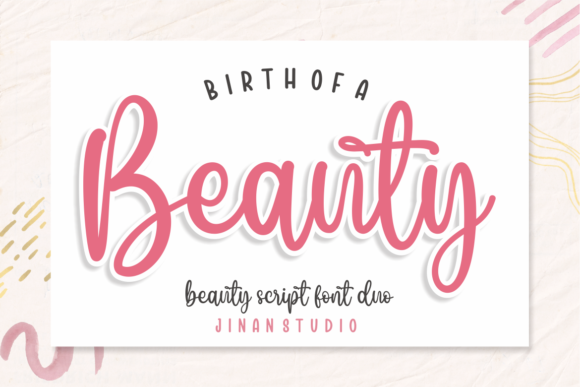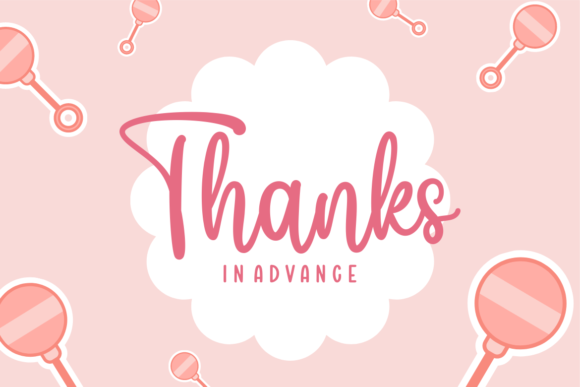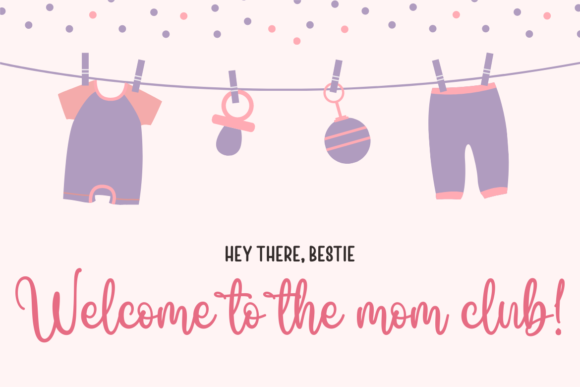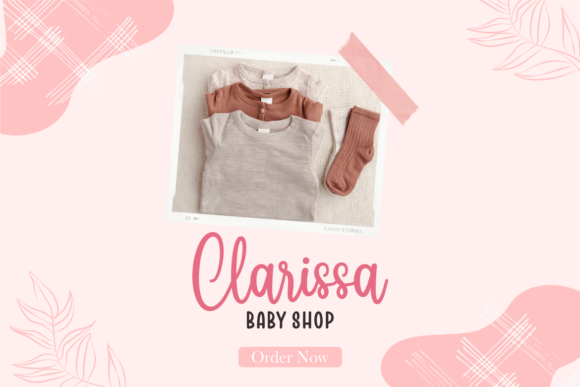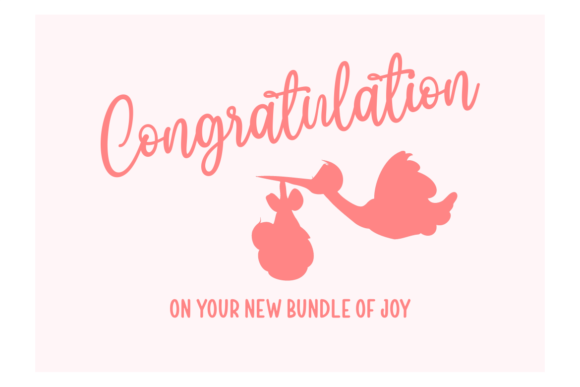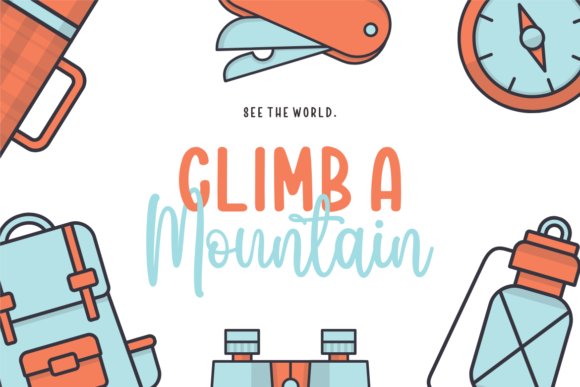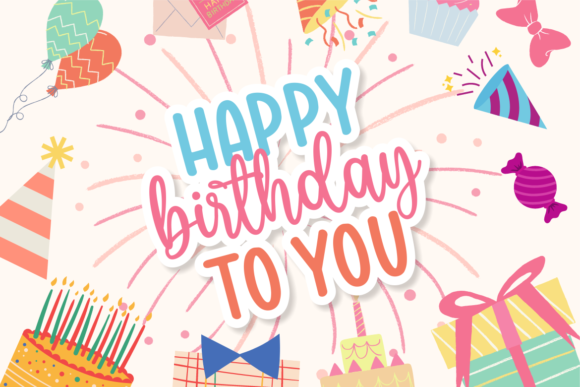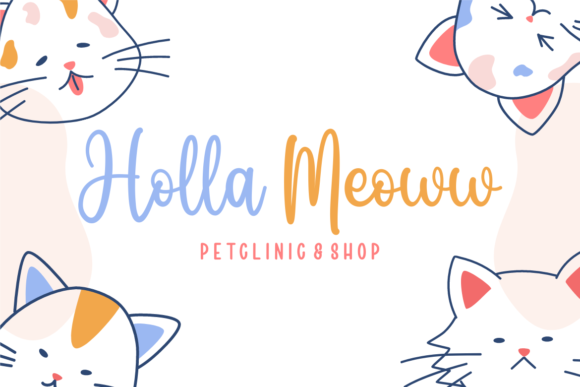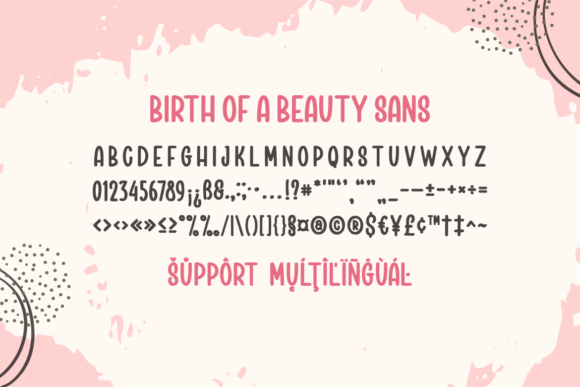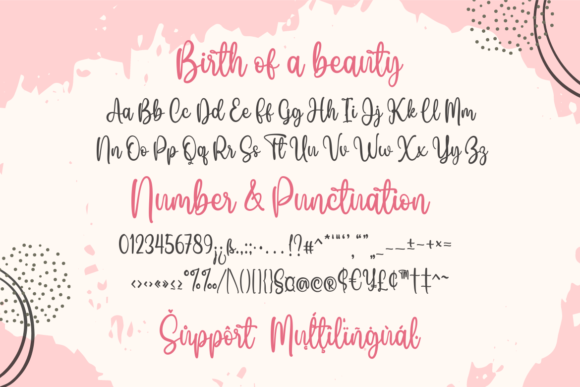
Birth of a Beauty Font
“Birth Of A Beauty” is a stylish and delicate duo font, featuring both a script and a sans-serif variant, making it highly versatile for a wide spectrum of applications. Whether you’re designing greeting cards, crafting headlines, or working on various creative projects, this font is poised to infuse a romantic touch into each of your creations.
The script font within “Birth Of A Beauty” adds an element of elegance and fluidity, bringing a graceful and handcrafted feel to your designs. Perfect for conveying sentiments on greeting cards or adding a touch of sophistication to headlines, the script component of this duo font exudes charm and style.
Complementing the script is the sans-serif variant, which introduces a clean and modern aesthetic to the duo. This sans-serif option provides versatility, ensuring readability and a contemporary edge, making it suitable for a range of design applications.
The combination of script and sans-serif in “Birth Of A Beauty” creates a harmonious interplay between delicate, romantic details and modern, clean lines. This balance allows you to seamlessly integrate the font duo into a variety of projects, offering a wide range of creative possibilities.
Whether you’re working on print or digital materials, “Birth Of A Beauty” ensures a cohesive and polished look. From invitations and stationery to branding materials and digital headlines, this font duo is designed to enhance the visual appeal of your creations with a romantic and stylish flair.
In summary, “Birth Of A Beauty” is not just a font; it’s a versatile design tool that brings together style and delicacy. With its script and sans-serif components, this duo font guarantees a romantic touch to your creative projects, making it an ideal choice for a broad spectrum of applications.